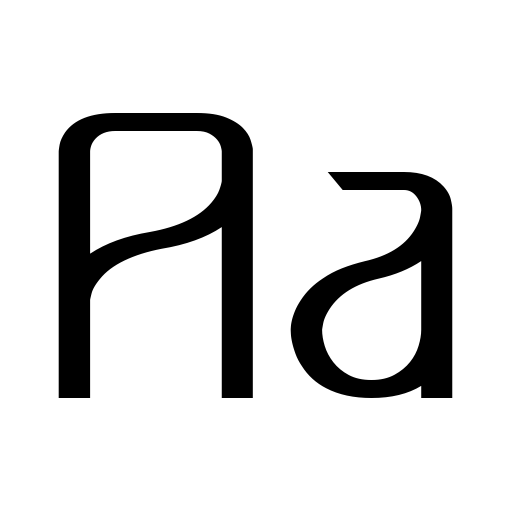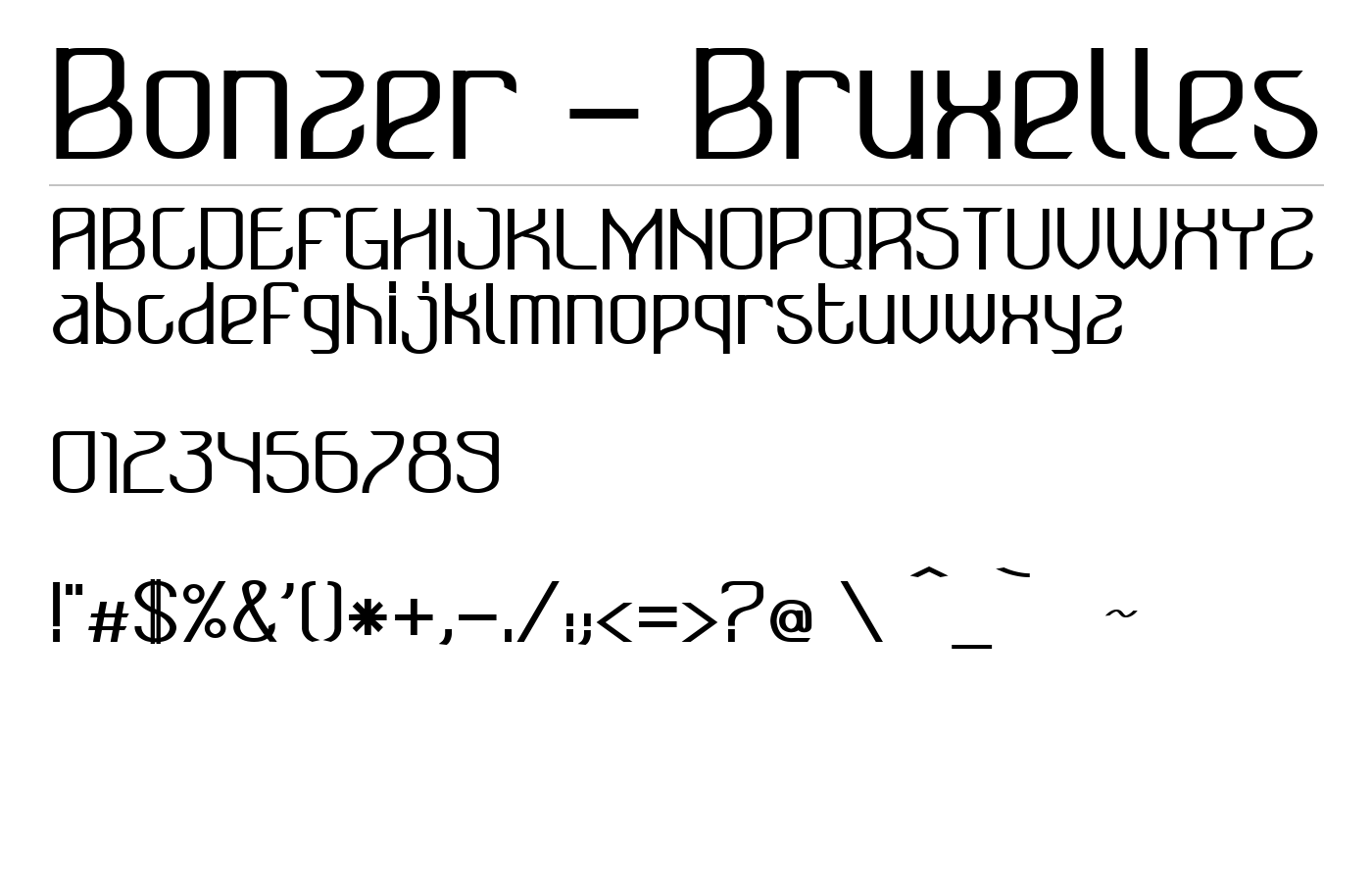
Bonzer - Bruxelles is a sleek, modern sans serif font with a condensed, geometric style and high x-height that ensures readability. Its distinctive, slightly quirky letterforms feature a mix of sharp and rounded edges with open counters and unique character shapes, lending a futuristic yet approachable feel. This font is perfect for avant-garde branding, editorial headlines, and creative projects seeking a contemporary, stylish, and memorable look.
Bonzer - Bruxelles Font